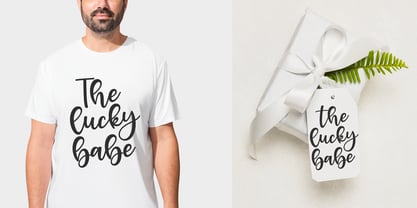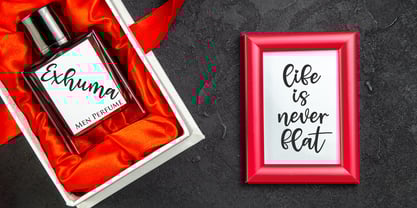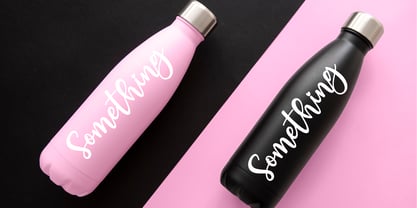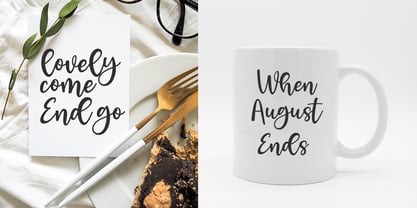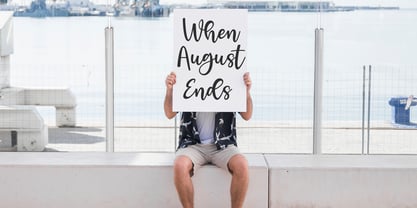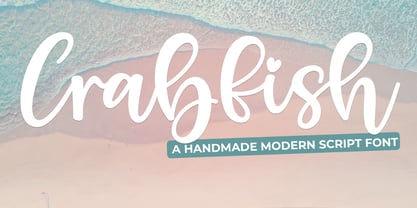
Crabfish
The Crabfish Font Family was designed by Arif Gunawan and published by Natural Ink. Crabfish contains 1 styles. More about this family
Crabfish Script is a modern calligraphy design, including Regular. This font is casual and beautiful with swash. Can be used for various purposes. such as logos, product packaging, wedding invitations, branding, headlines, signage, labels, signatures, book covers, posters, quotes, and more.